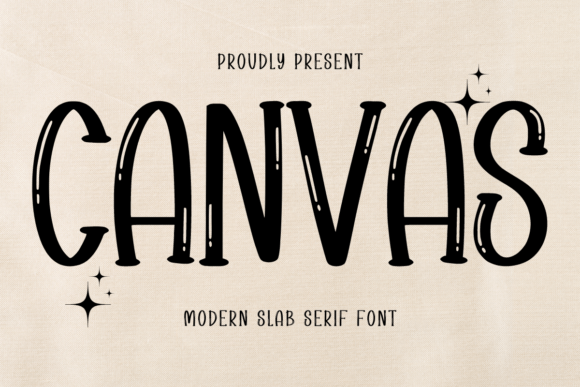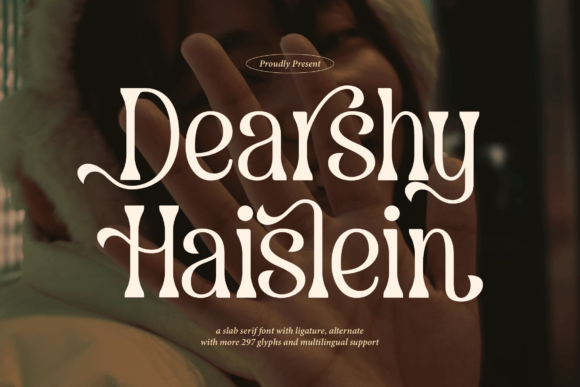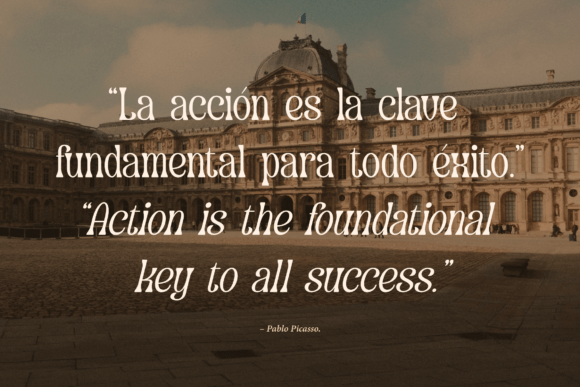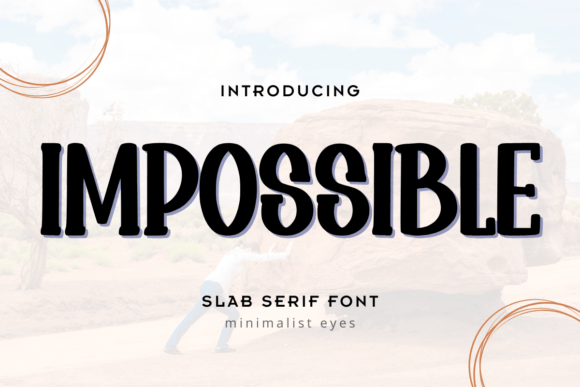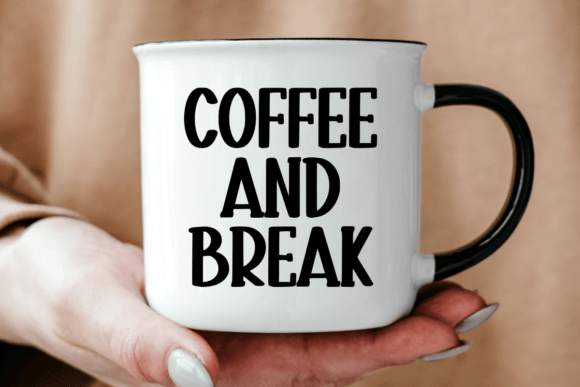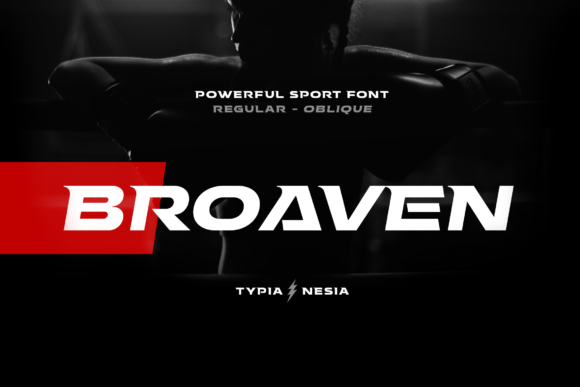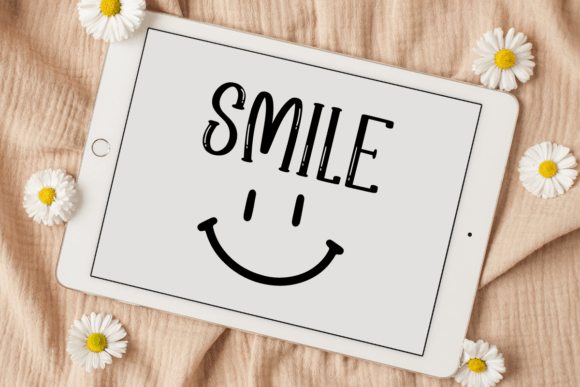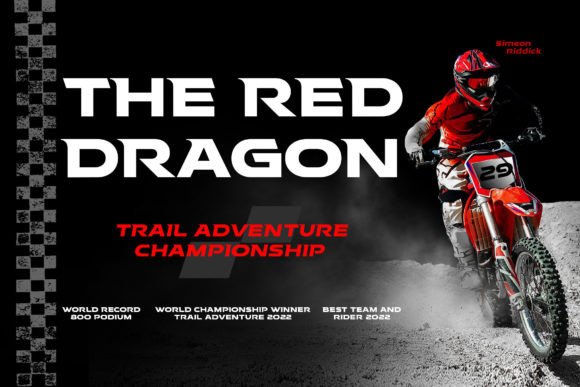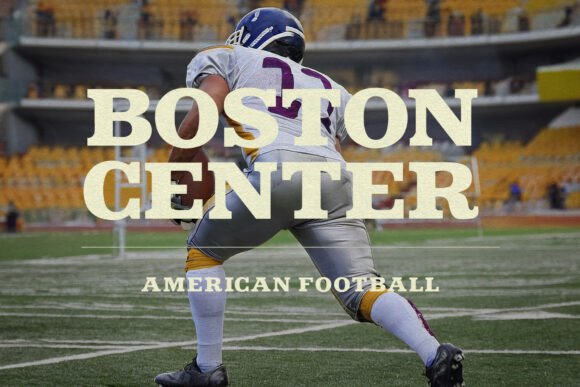
19 Essential Slab Serif Font Collections for Every Creative
Choosing the right typography is often the defining moment of any branding or editorial project. If you are looking to balance bold impact with timeless readability, then exploring these 19 essential slab serif font collections for every creative is the perfect place to start.
Whether you are designing for high-tech industries, nostalgic vintage labels, or playful children’s books, a versatile Slab Serif font provides the structural integrity and character needed to make your message resonate. In this curated list, we’ve gathered a diverse range of styles—from the elegant and luxurious to the sharp and gritty—ensuring that there is a professional solution for every creative task on your desk. Dive in and find the perfect bold companion for your next masterpiece.
Canvas Slab Serif Font
As a designer, I’m always on the hunt for typefaces that don’t just sit on the page but actually demand attention. That’s exactly why I wanted to highlight Canvas. It is a remarkably thick and modern Slab Serif that strikes the perfect balance between high-impact presence and contemporary style.
What draws me to this specific font are the wide characters paired with those signature chunky serifs; they create a visual weight that is just perfect for eye-catching designs. I’ve found it incredibly versatile for my own projects—whether I’m scouting for the right look for a bold headline, a movie poster, or even gritty t-shirt typography. It works seamlessly for everything from product labels to social media quotes. Plus, the best part for anyone building their asset library is that this gem is currently part of Creative Fabrica’s free font collection.
Into the Wild Slab Serif Font
If you’re looking to inject some rugged, outdoorsy soul into your next project, you have to check out Into the Wild. In my experience, finding a Slab Serif font that feels both “cool” and authentically vintage without looking dated is a tall order, but this one nails the aesthetic perfectly. It has a raw, adventurous character that instantly brings a sense of nostalgia and craftsmanship to the screen.
I honestly believe this font is an incredible asset to any designer’s library because of its sheer adaptability. No matter the topic—whether you’re working on a rustic branding project, a travel blog, or high-end editorial layouts—it has this unique potential to elevate the entire creation. It’s one of those reliable Slab Serif font options that manages to feel timeless yet trendy all at once. If your design needs a bit of “wild” spirit and a professional edge, this is definitely the one to grab.
Dearshy Haislein Slab Serif Font
When a project calls for a blend of authority and grace, Dearshy Haislein is one of the first names on my list. It is an incredibly stylish Slab Serif font that stands out thanks to its bold, thick letters and sharp, strong edges. While many slab serifs can feel overly industrial, this one maintains a classic design that exudes confidence and elegance simultaneously.
What makes this typeface truly special for us designers is the inclusion of beautiful ligatures and alternates. With over 297 glyphs and full multilingual support, it offers a high level of creative flexibility. I personally love using it for high-end headlines and logos—it’s the perfect choice for any project that needs that “bold yet refined” touch to really pop.
Summer Flowers: Hand-Drawn Slab Serif Font
If you’re looking to bring instant sunshine to your creative work, Summer Flowers is the perfect choice to add those vibrant vacation vibes. As a designer, I love how this playful Slab Serif font combines chunky letterforms with soft, rounded corners and a friendly, handwritten touch. It has an organic outline that keeps your designs feeling fun and approachable, making it a fantastic display font for everything from beach party invitations and stickers to retro travel posters and eye-catching social media posts.
What makes this Slab Serif font a real staple for my toolkit is its sheer versatility across different platforms and mediums. It reads beautifully in both print and on-screen, and it’s a dream for crafters because it works seamlessly with tools like Cricut, Silhouette, Canva, and Procreate. Whether I’m designing kids’ books, sublimation prints, or bold YouTube thumbnails, Summer Flowers pairs effortlessly with script accents to create a polished, tropical look. Best of all, it’s free for Creative Fabrica subscribers, so you can download it today and start splashing some color across your latest branding or classroom resources!
Impossible: A Modern and Friendly Slab Serif Font
When I want to move away from the more rigid, industrial look of traditional typography, I often turn to Impossible. It is a modern and friendly Slab Serif font that offers a truly delightful blend of whimsy and clarity. As a designer, I appreciate how its playful curves and rounded edges bring an immediate sense of warmth and accessibility to the page.
This font radiates a sweet charm and an inviting personality, making it an absolute standout for projects like children’s books, personalized invitations, and boutique branding. It’s the kind of Slab Serif font that captures attention not by being loud, but by being genuinely approachable and clear. If your goal is to create a design that feels both professional and incredibly heartfelt, Impossible is a fantastic asset to have in your collection.